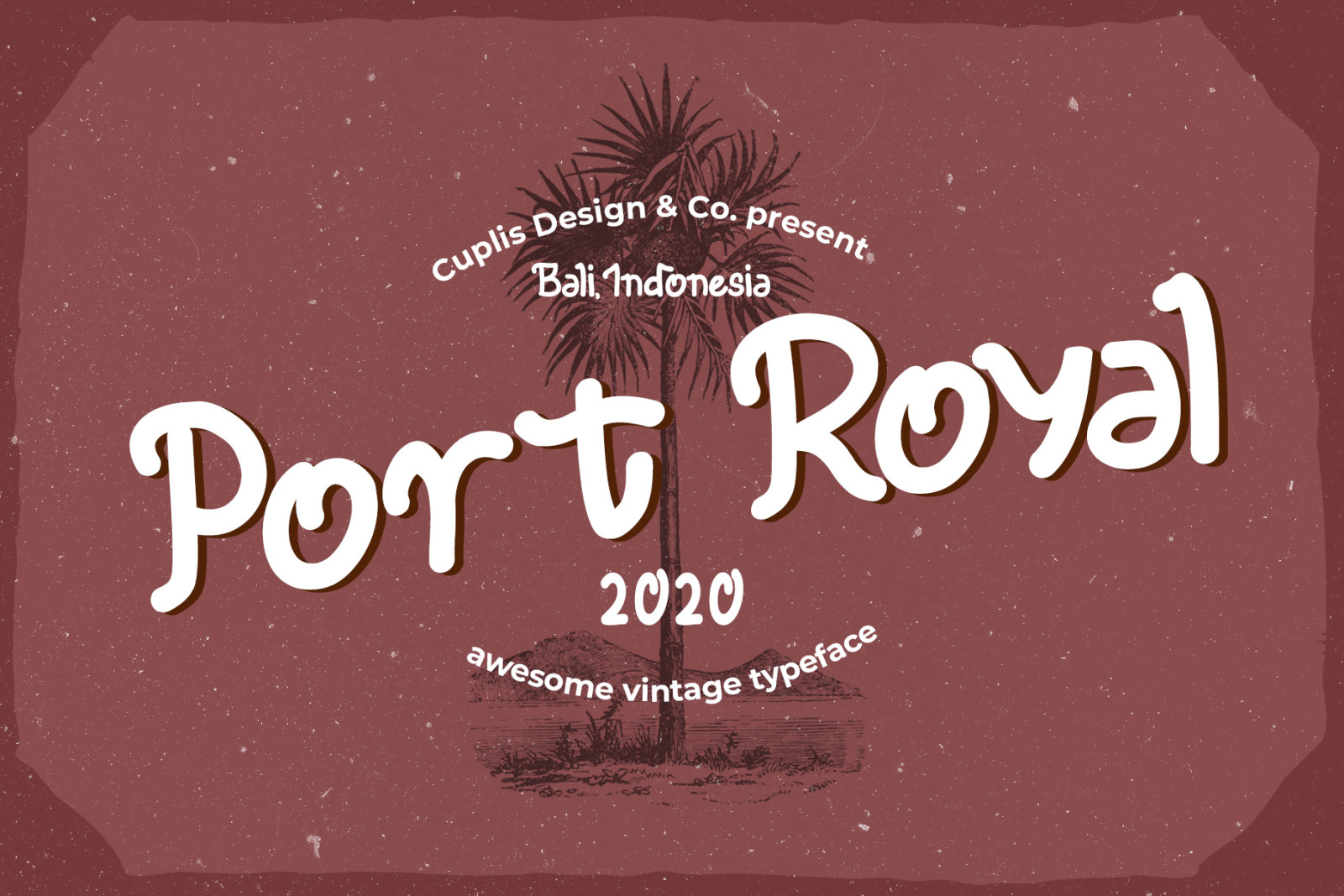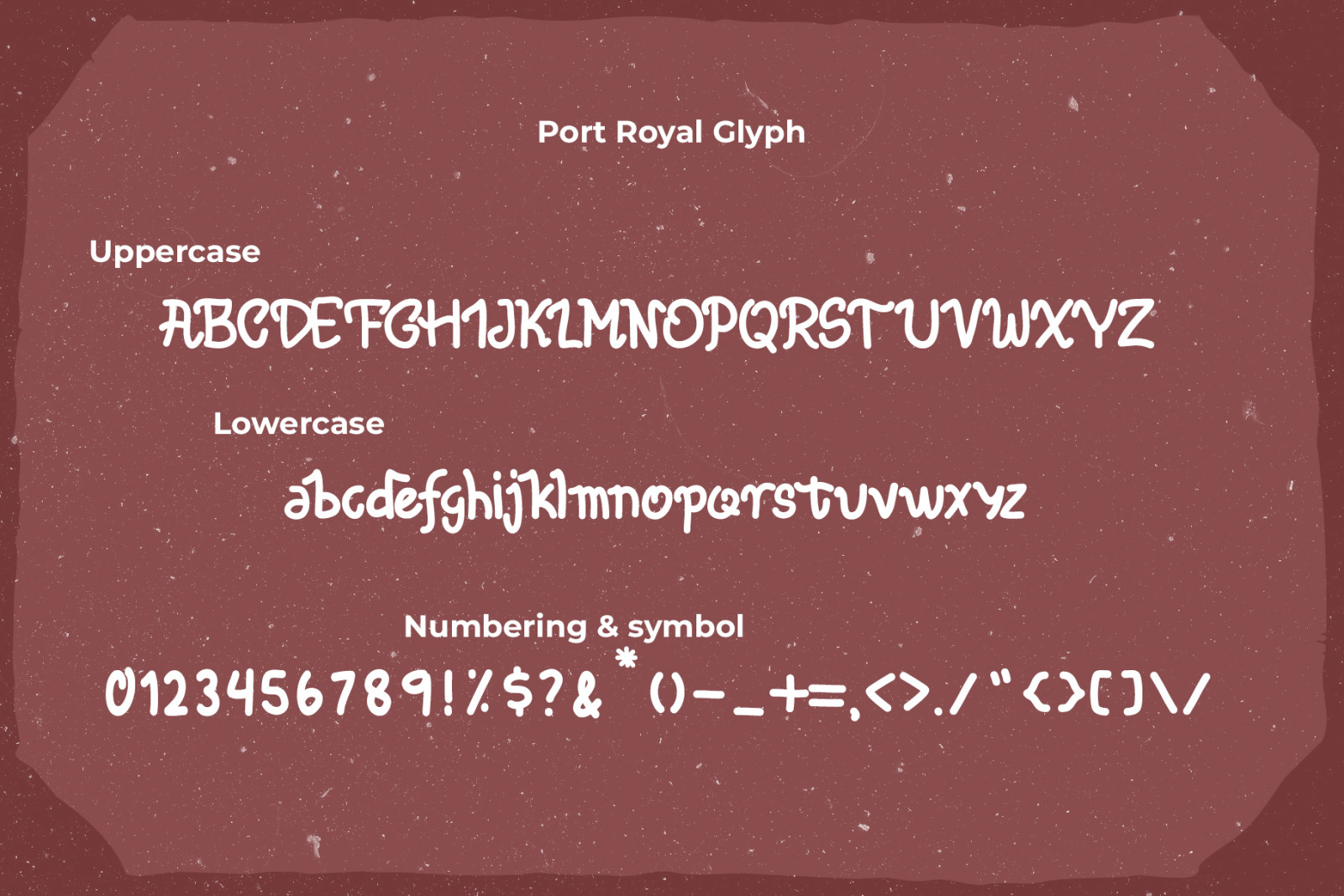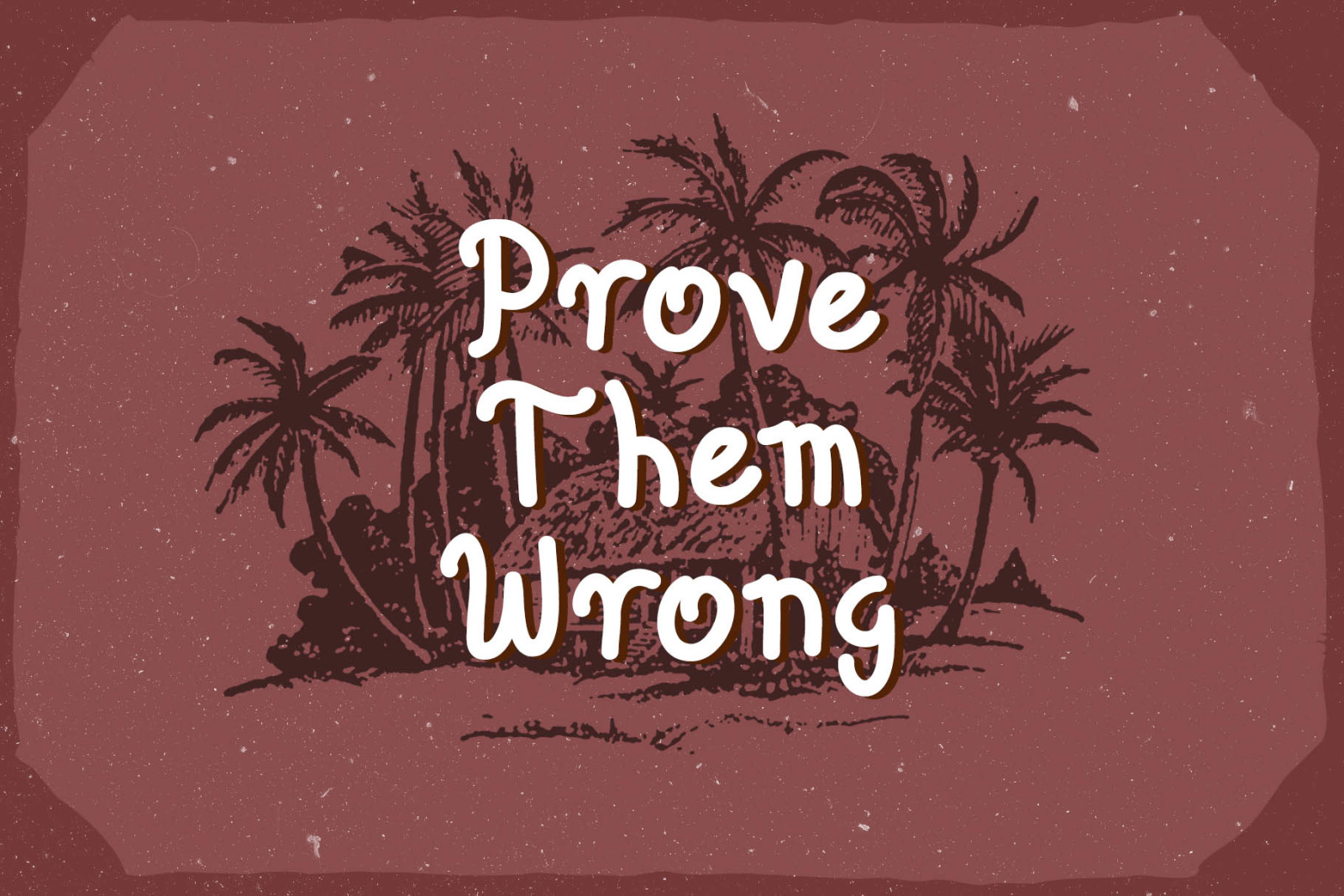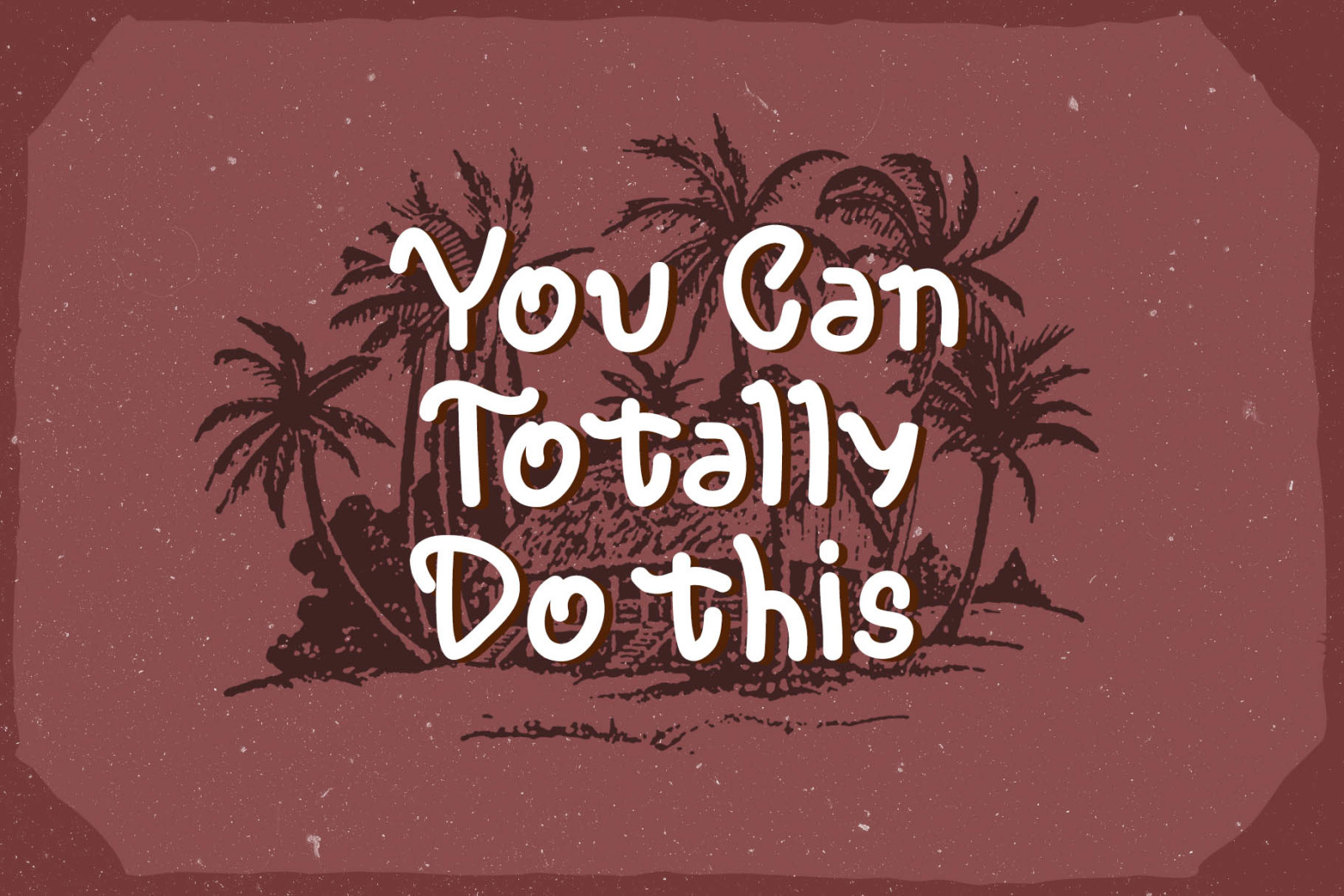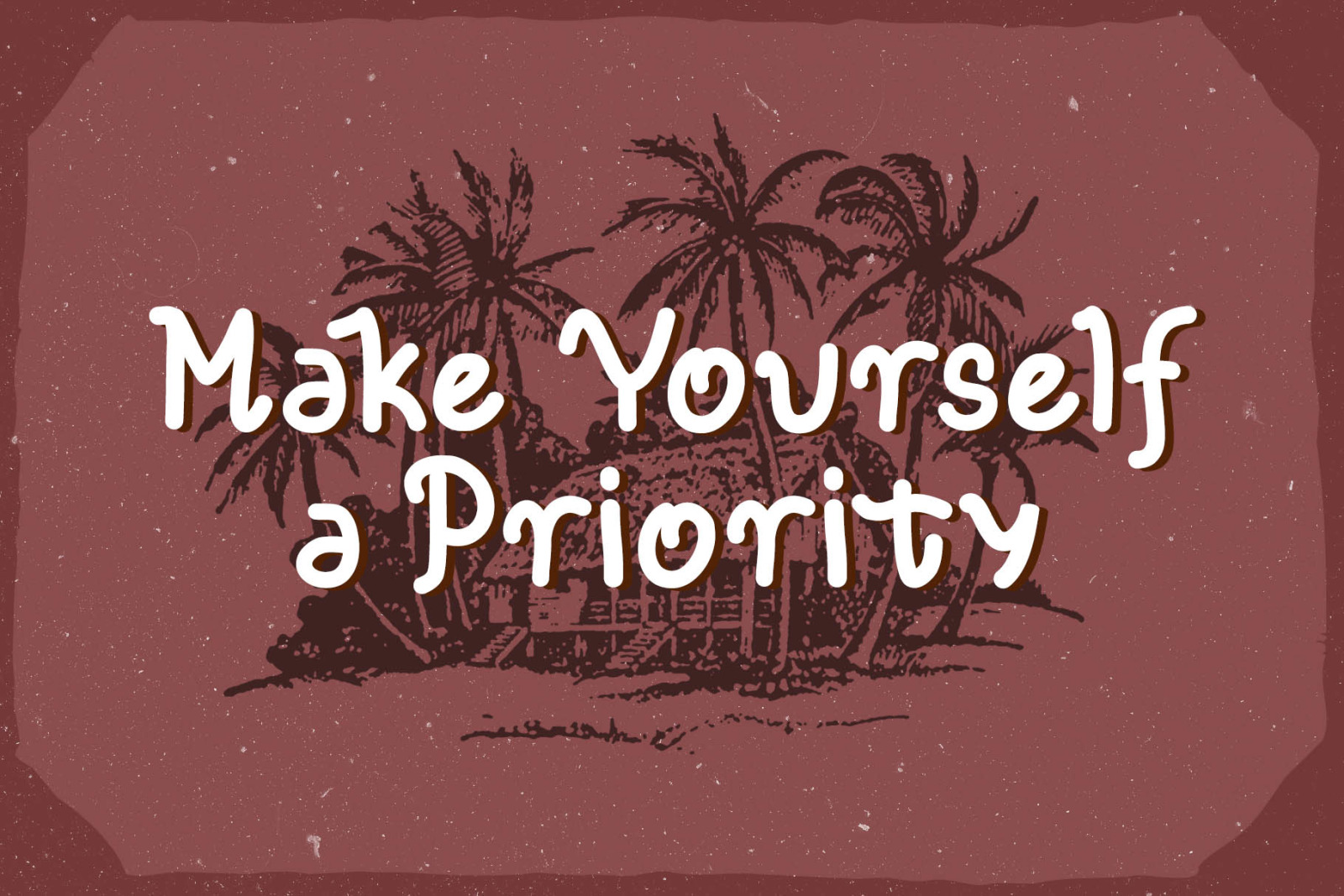
Port Royal Stunning Vintage Fonts
I proudly introduce to you Port Royal, a stunning vintage typeface font, very unique font and BOLD. Can make it easier to convey the message in your design. Use for awesome vintage display, Logo, labeling, clothing, movie screen, poster, movie title, gigs, album covers, logos, and much more.